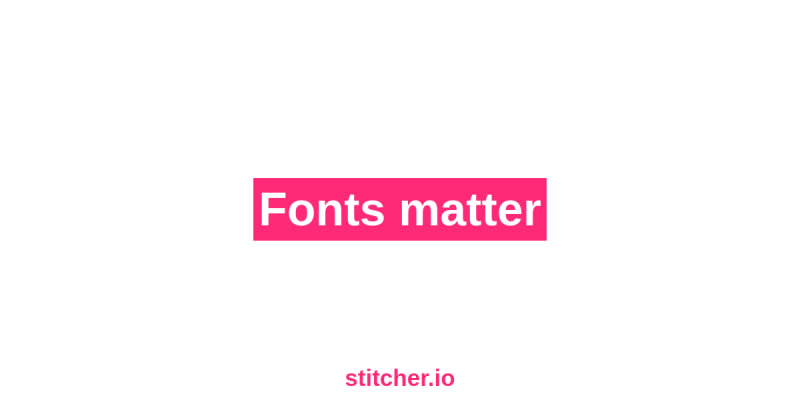
programming is so much more about reading and understanding code, than it is about writing. "writing code" is only the lesser part of my programming life, so I have much to gain by making the ‘reading part’ as pleasant as possible. I choose a font that’s pleasant to read, modern fonts suit me better.